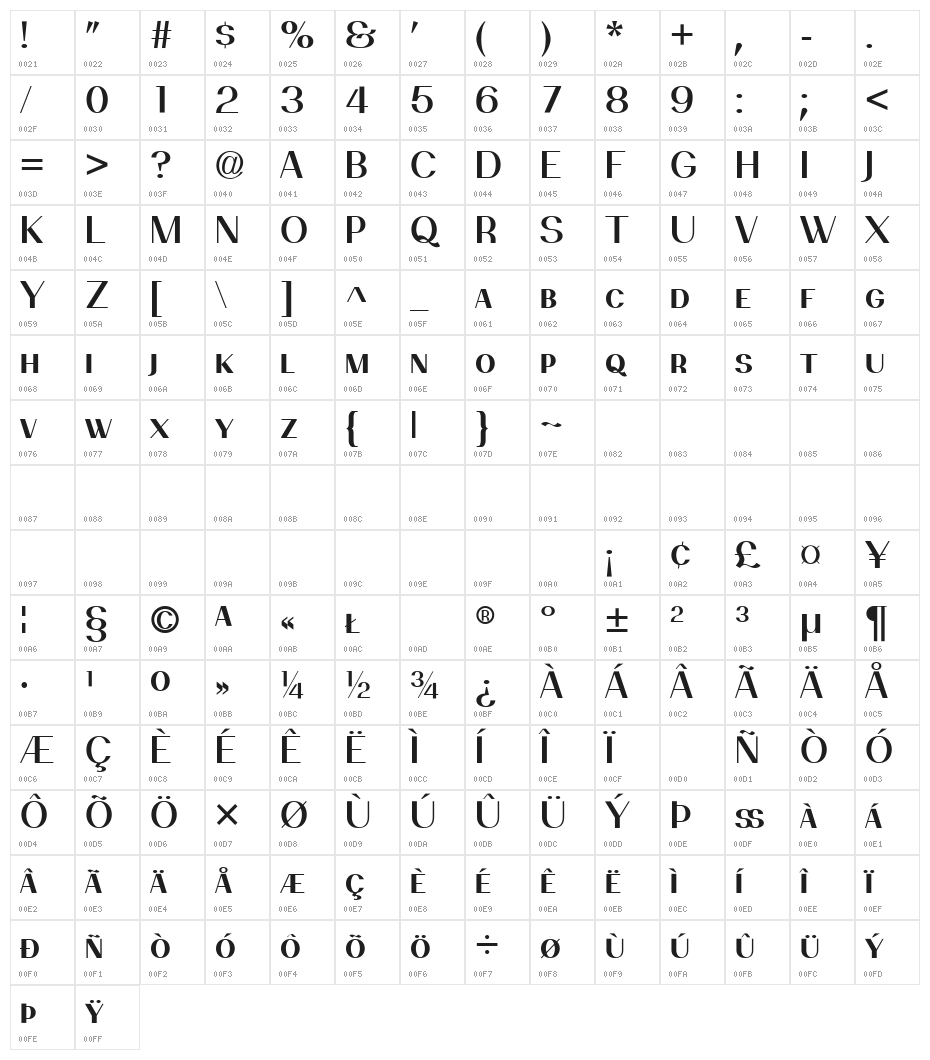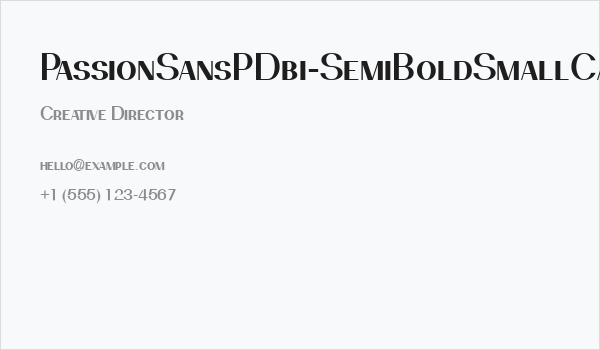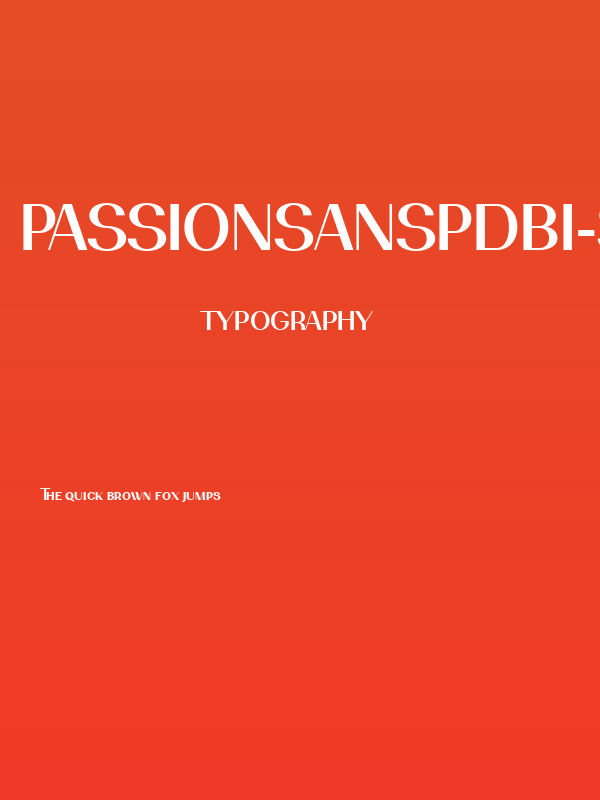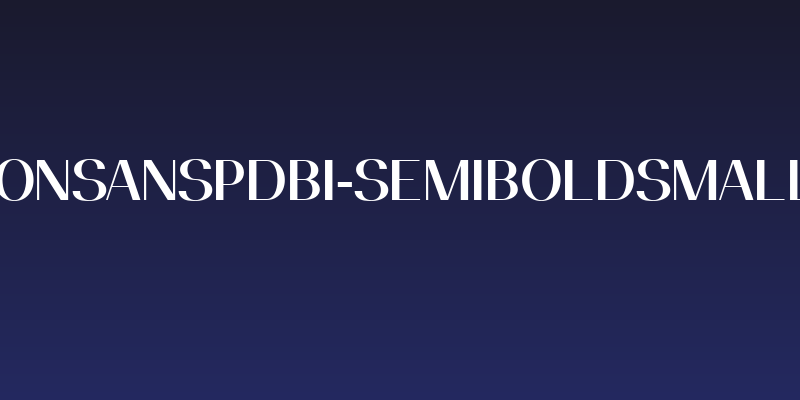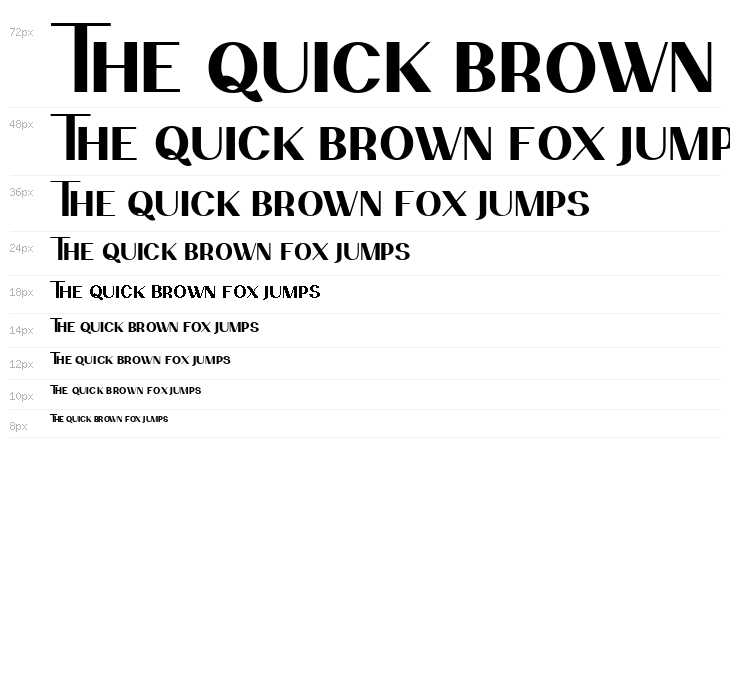
PassionSansPDbi-SemiBoldSmallCaps Font
PassionSansPDbi-SemiBoldSmallCaps Description
This font exhibits a modern and sophisticated style with a semi-bold weight that enhances its readability and visual impact. The uppercase letters are sharp and clean, with a slight contrast in stroke thickness that adds elegance. The lowercase letters maintain a consistent style, ensuring uniformity across text. The numerals are bold and clear, making them easily distinguishable. Special characters are well-defined, complementing the overall aesthetic. The font's design is versatile, suitable for both digital and print media, offering a professional yet stylish appearance.